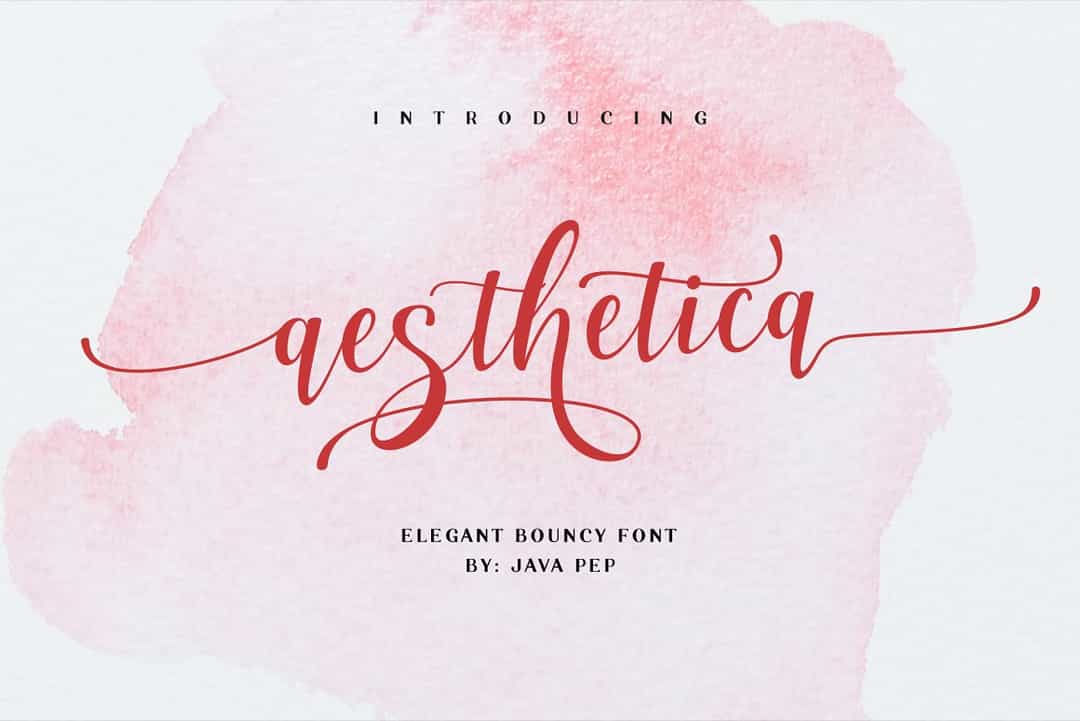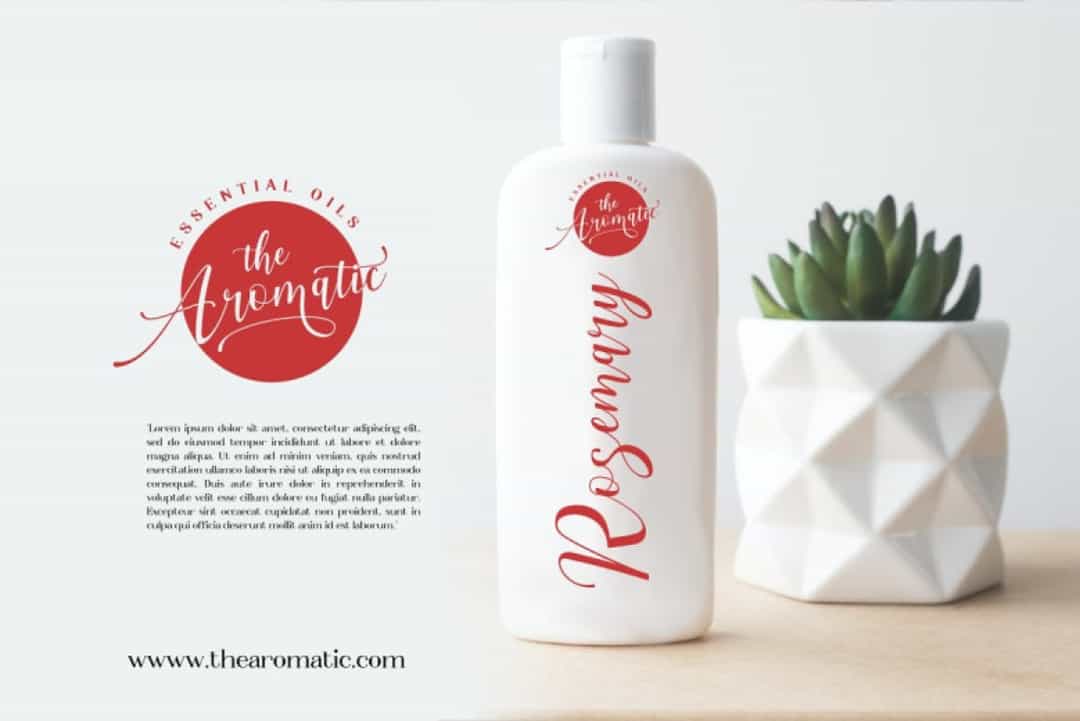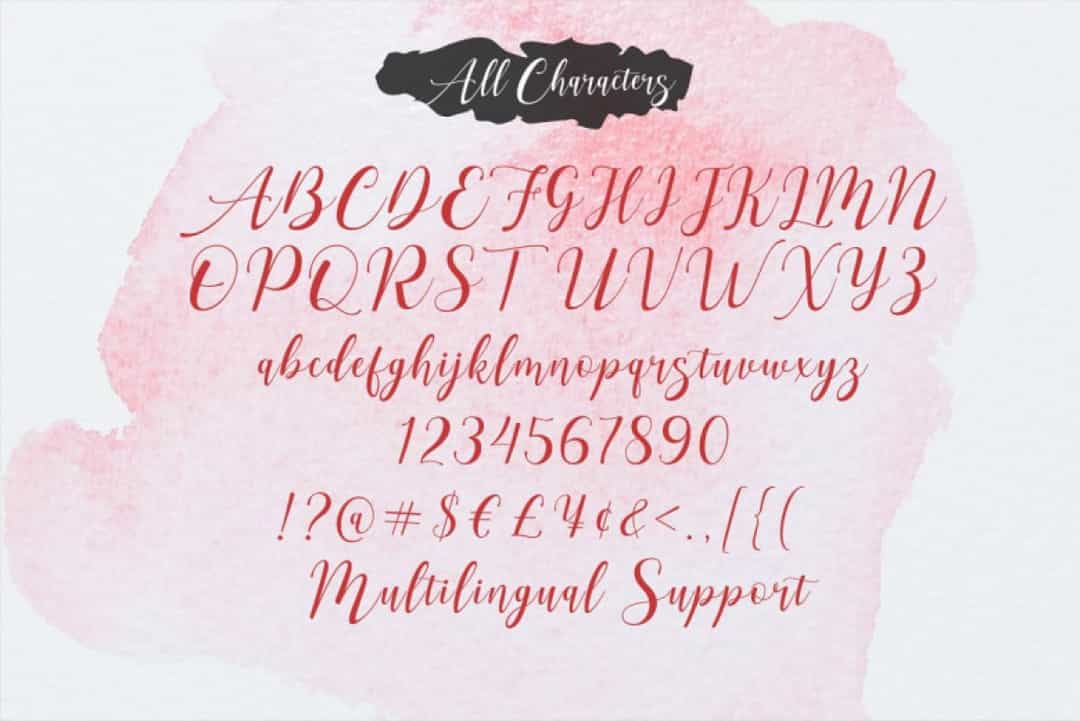
Discover Aesthetica Font, part of the Calligraphy collection—a versatile and unique font perfect for adding a personal touch to your projects. Download it for free and enjoy crafting designs with style, from invitations to social media posts. This font is available exclusively for personal use, giving you the freedom to create without limits. Unlock your creativity with Aesthetica Font today!
This elegant font exudes beauty and grace. Its shape evokes elegance and aesthetic. Aesthetica font comes equipped with various alternates; choose between swashes (SS01-SS2), stylistic alternates (SS01) or alternate initial or terminal forms for your design needs.